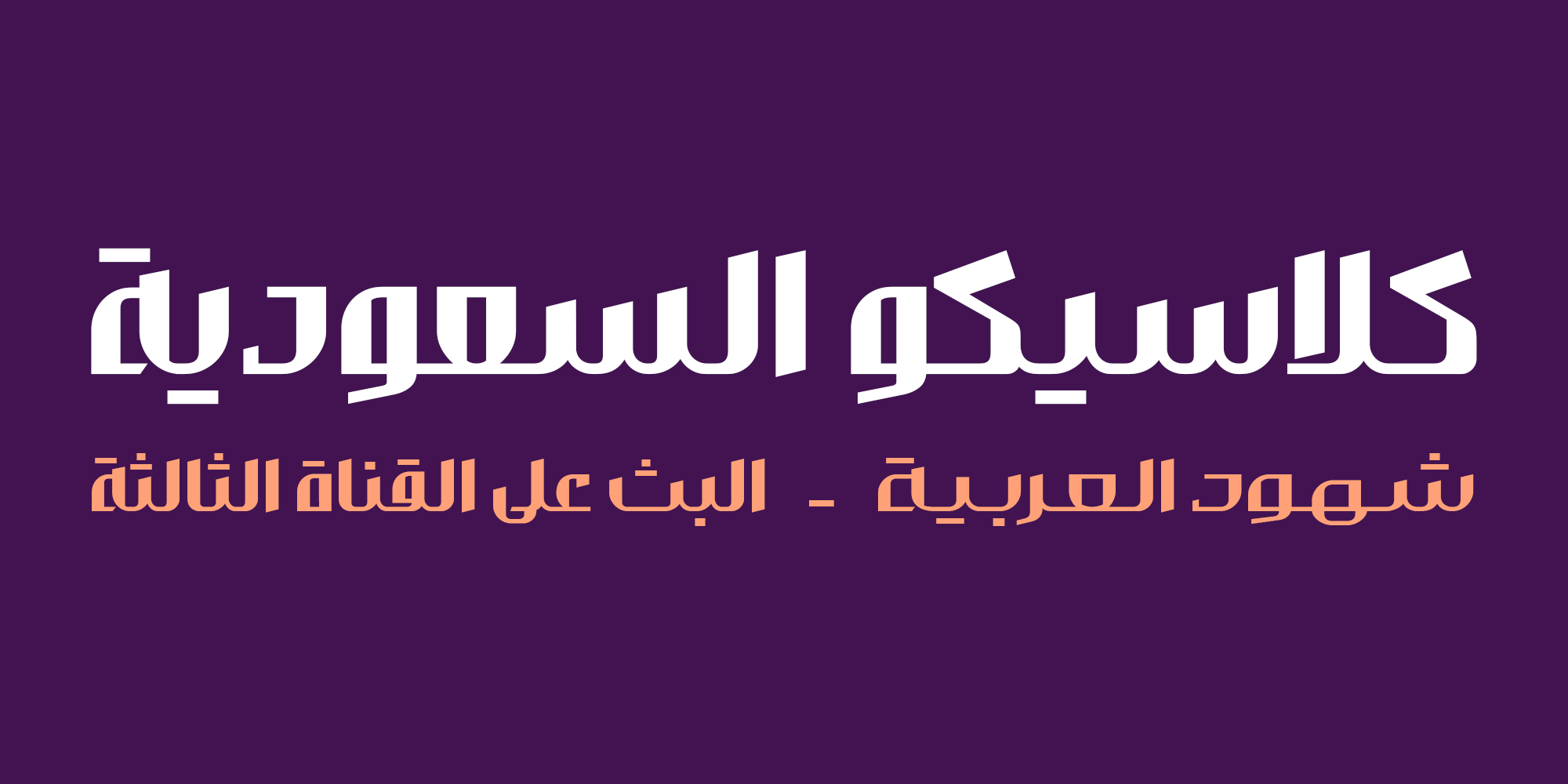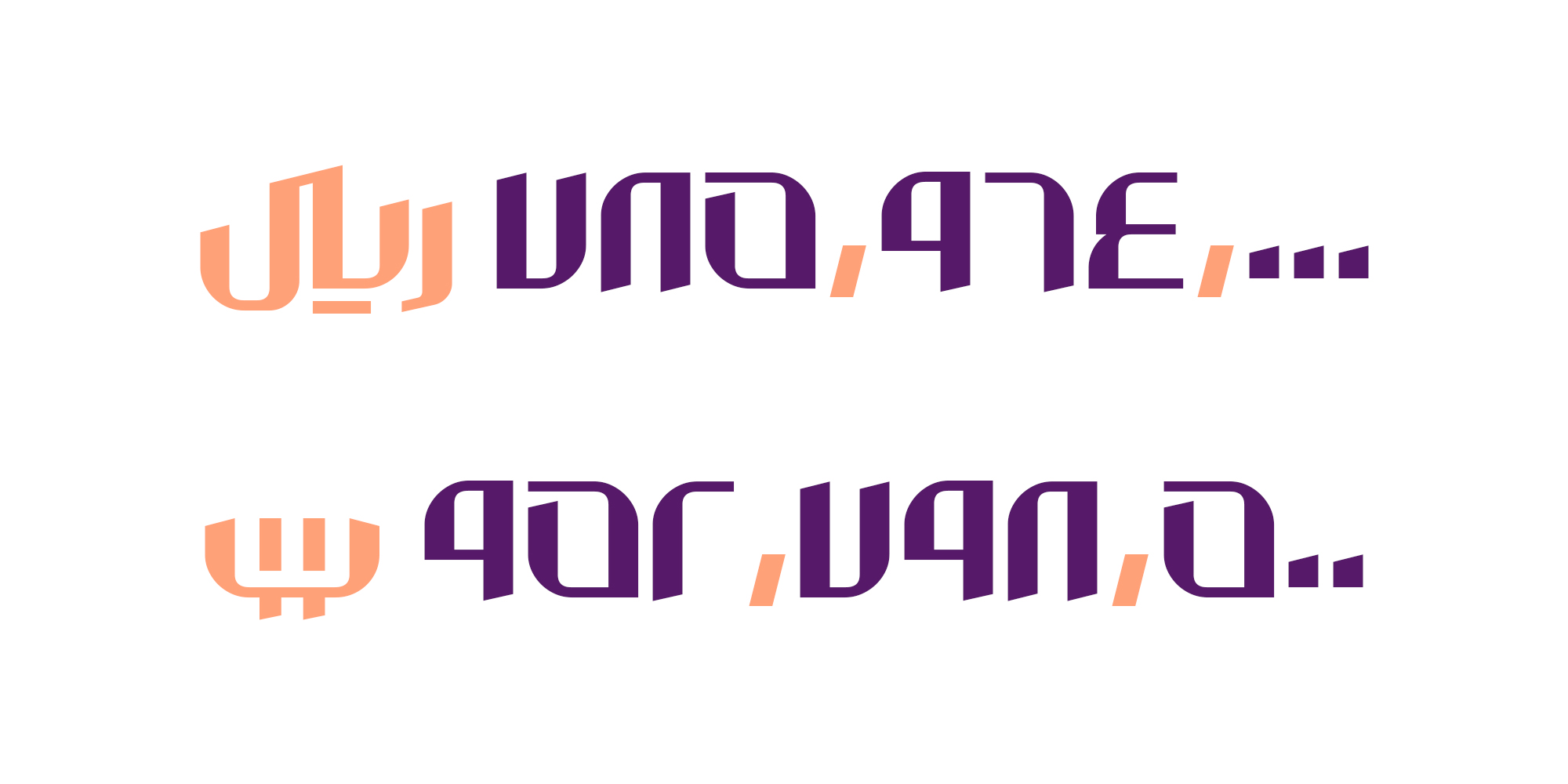
Valman
The Valman typeface makes your job easy when designing logotypes. You can also use the Valman font in packaging design, store signage, and all kinds of commercial advertisements that you want to look luxurious and modern.
5 different width levels; from condensed to expanded
Rial and Toman symbol design!
The Valman font contains abbreviated forms and suggested symbols for Rial and Toman.
Combinations, Ligatures, and Alternative Letters
A guide to using combinations and alternate letters is included in the Valman font package.
Supported languages in Valman typeface
The Valman font supports Persian, Arabic, Urdu, Kurdish, and Jawi languages.
Numbers and symbols in the Valman font
. Includes Persian, English and Arabic numbers
. Includes Tabular numbers
. Includes descending numbers (suitable for aligning in boxes and price insertion space in site buttons and price list banners)
Valman Variable Font
The use of variable fonts in web design is becoming more and more common. Variable fonts are now being used on many of the most visited Persian websites.
Using just one font file for all weights and styles means that only one request is sent to your server, making each page load faster.